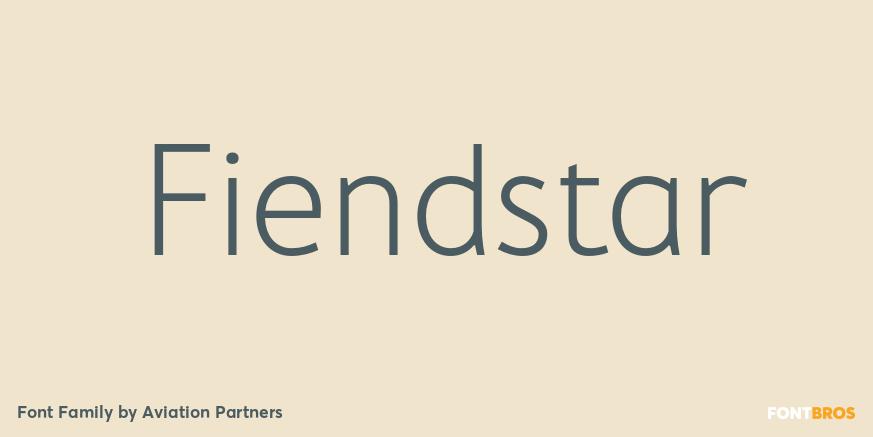
Fiendstar
About Fiendstar
Initially created as a less quirky alternative to GillSans Schoolbook, Fiendstar has been developed into a family of widths, weights and styles. High legibility makes it suitable for signs and school books, especially for readers with poor reading ability.…